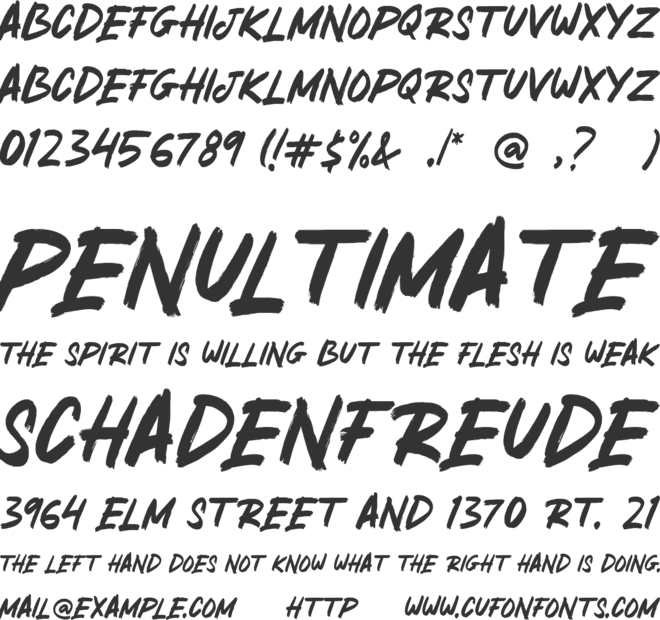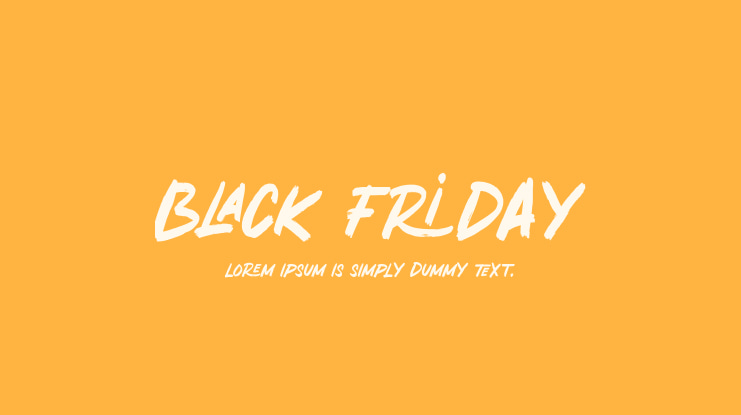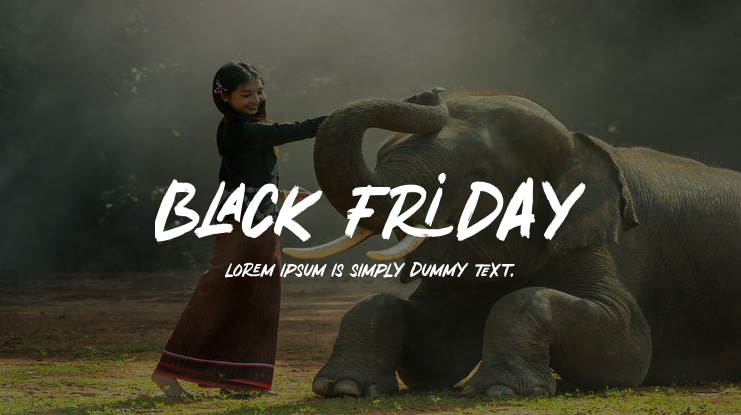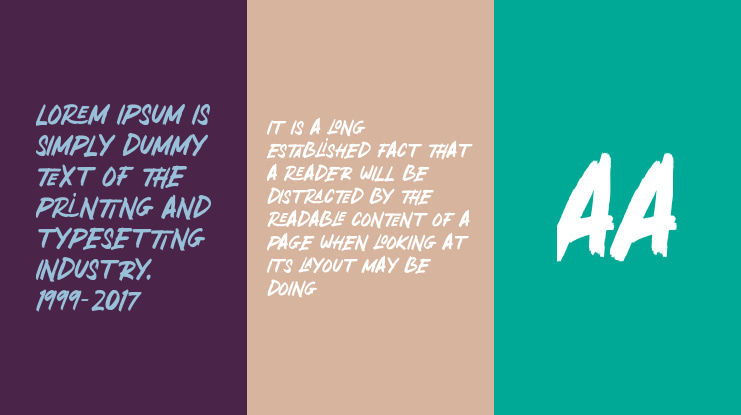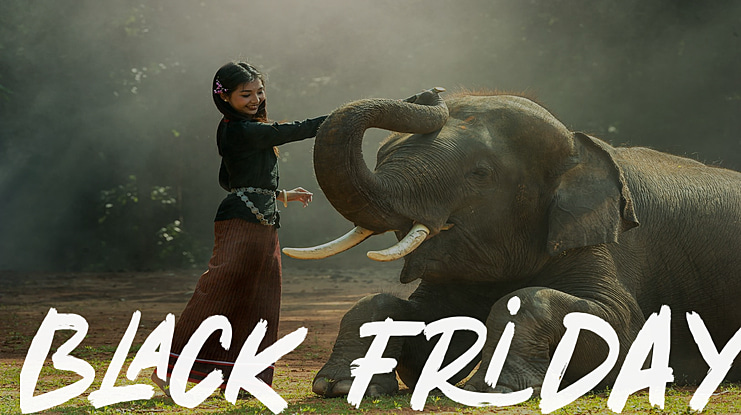
BLACK FRIDAY Font
BLACK FRIDAY is natural handbrush font.
It is a casual, fun display font, created by using a procreate.
It has an urban and trendy feel and it will most definitely fit a wide range of designs.
This font is perfect for sport flyer, music event, black friday flyer, discunt banner, brand announcements, packaging, quotes, branding, advertisements, blogs, logos, invitations and more!
This font is PUA encoded which means you can access all of the stunning glyphs and swashes with ease! It also features a wealth of special features including alternate glyphs and ligatures.